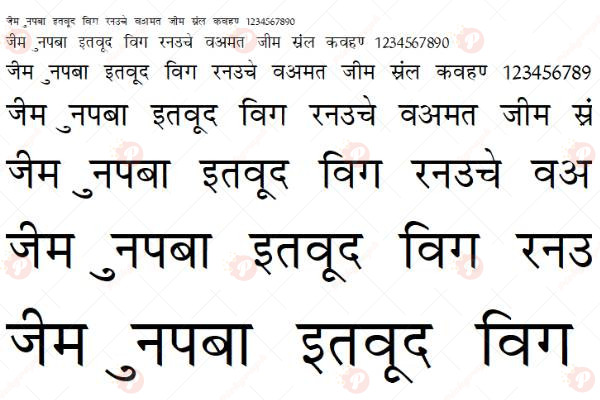
The Krishna Font is a devotional and artistic typeface inspired by Indian tradition and spirituality. With its unique cultural essence and elegant curves, this font is perfect for religious posters, festival banners, invitations, devotional books, packaging, logos, and cultural branding projects.
Blending heritage with readability, the Krishna Font works beautifully in both digital and print designs, adding a divine touch to creative projects.
Style: Traditional / Devotional / Decorative Typeface
Perfect for: Festival Posters, Religious Invitations, Cultural Branding, Banners, Book Covers & Social Media Graphics
| Optimum Size | Large (Display / Poster) |